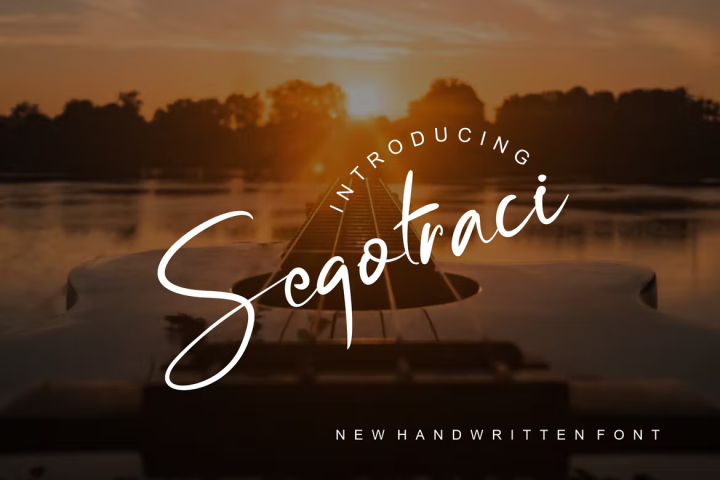
Segotraci Font
Segotraci Font a condensed handwritten font. It has a elegant, classy look and modern. It’s a great font for fashion, apparel projects, signature, album cover, logo, branding, magazine, social media, & advertisements, but also works great for other projects.